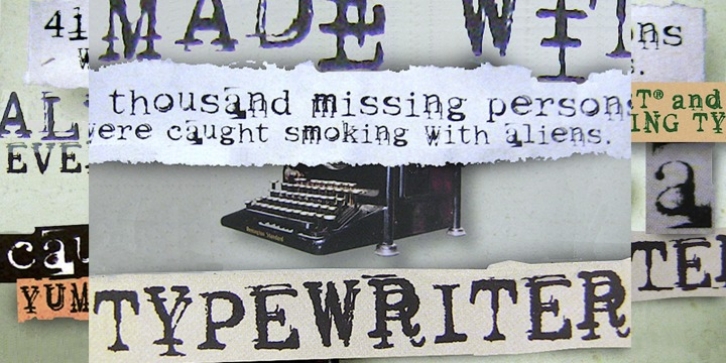
Keystoned was designed by Lloyd Springer and published by TypeArt Foundry. Keystoned contains 4 styles and family package options.
Typewriter with problem keys.